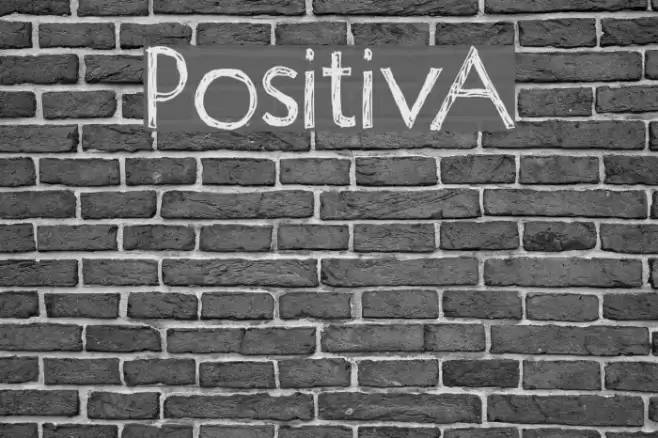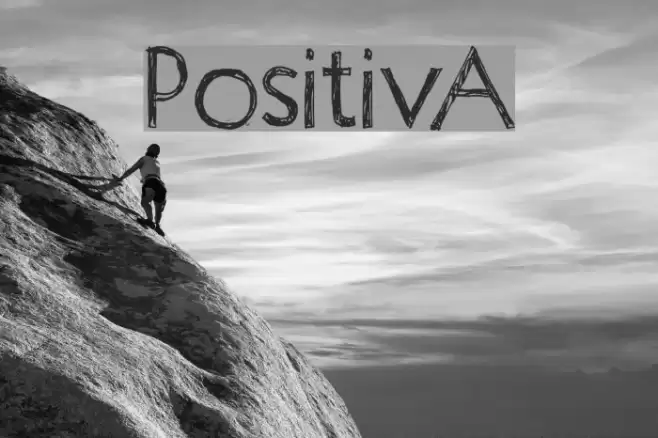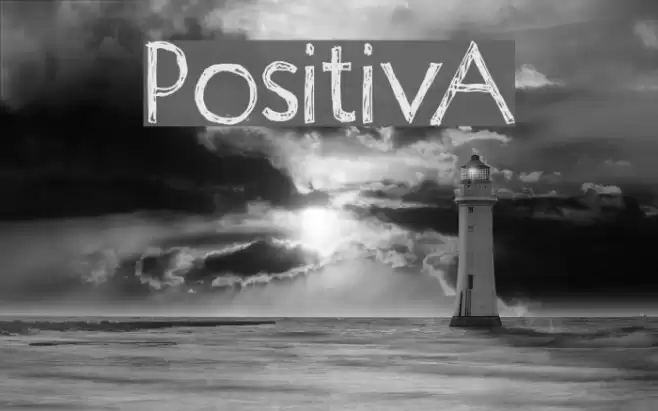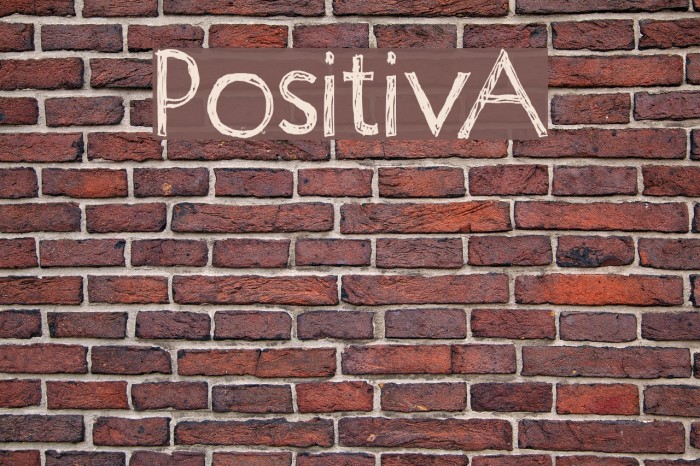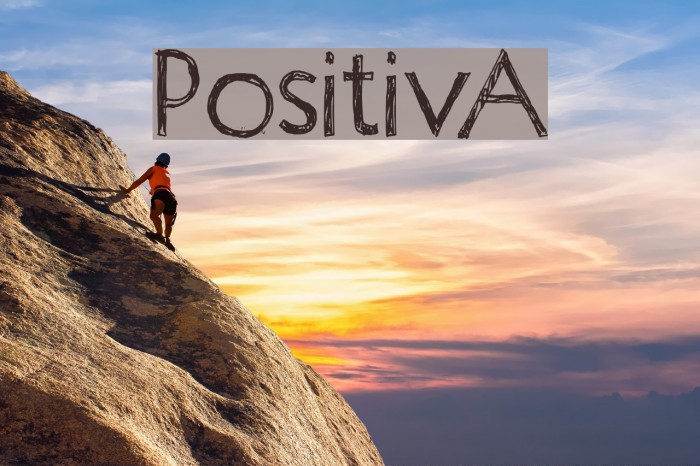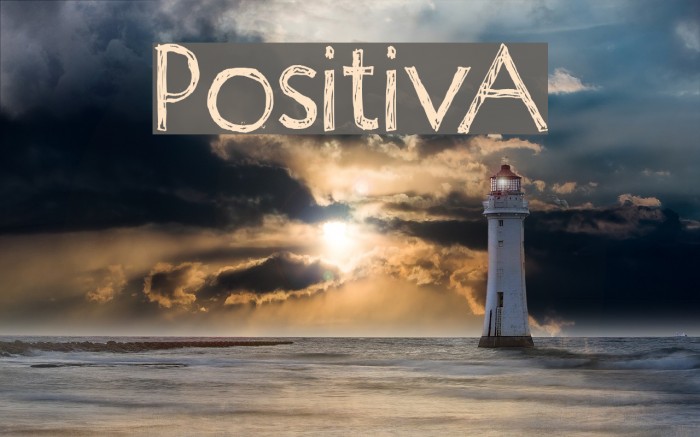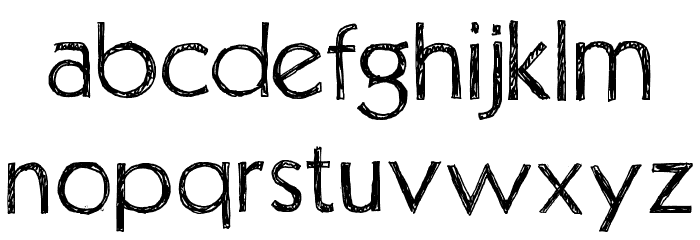
PositivA Font
PositivA Description
This font exhibits a playful and artistic style, characterized by its hand-drawn appearance. The letters have a textured, sketch-like quality, giving them a unique and informal feel. The uppercase and lowercase letters maintain a consistent style, with slightly uneven strokes that add to the handcrafted look. The font includes a full set of uppercase and lowercase letters, numerals, and a selection of special characters. Its distinctive style makes it suitable for creative projects where a casual and artistic touch is desired.
A playful, hand-drawn font with a sketch-like texture from Handwritten fonts.
- Proposed Projects: Ideal for creative projects such as posters, invitations, children's books, and artistic branding.